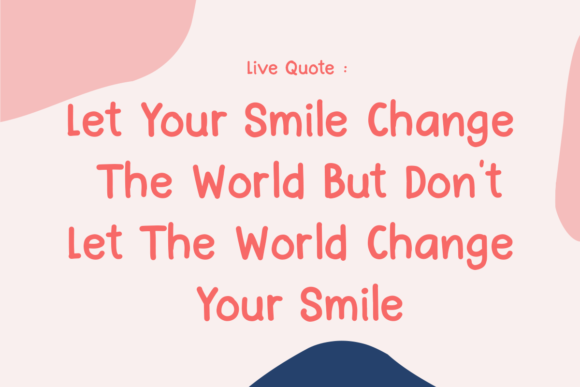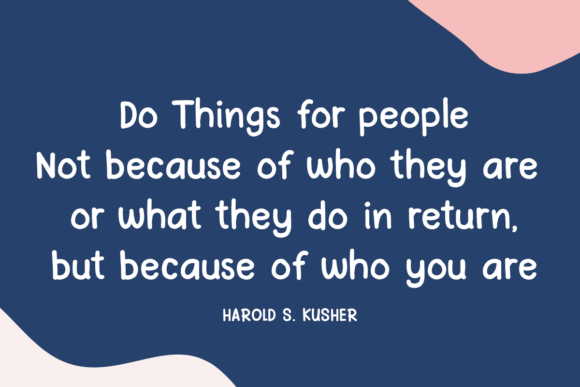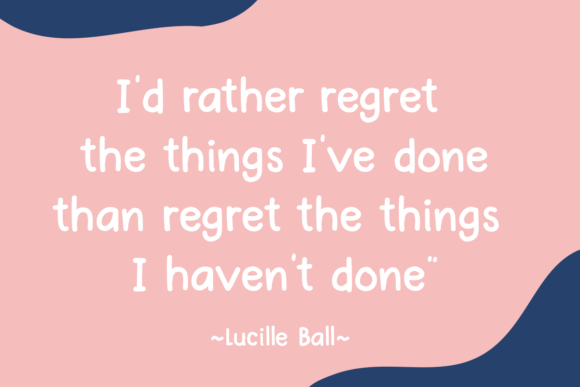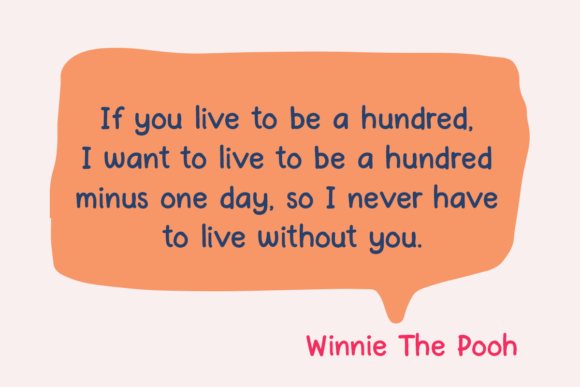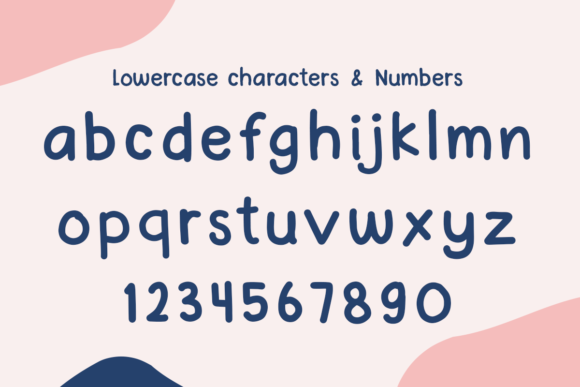
Introduction to Pink Chicken Font
Have you ever stared at a blank page, waiting for inspiration to strike? That’s exactly where I was when I stumbled upon the Pink Chicken Font. Its playful, handwritten style immediately captured my attention, and I knew I had to learn more. With its natural and unique flair, the Pink Chicken Font is the perfect addition to any creative project.
Whether you’re a seasoned designer or just starting out, this font is a valuable resource that can elevate your designs to the next level. Its versatility and high-quality design make it an ideal choice for a wide range of projects, from website headers to social media graphics. And the best part? It’s available for free download, making it accessible to designers of all skill levels.
Key Features of Pink Chicken Font
- High-quality, hand-drawn design perfect for creative projects and design resources.
- Transparent background for easy customization and versatility.
- Includes 5 styles and 5 weights for a wide range of design applications.
- Designed for use at any resolution, from low-resolution displays to high-resolution print materials.
- Perfect for use in digital design, graphic design, and creative projects requiring a unique, hand-drawn look.
Honest Review: Pink Chicken Font
I recently stumbled upon the Pink Chicken Font, and I must say it’s a delightful addition to any creative project. This font is perfect for designers looking for a unique touch in their designs.
- ✨ High quality design: The font is well-crafted, making it a great choice for professional projects.
- ✨ Transparent background: The font’s transparent background allows for seamless integration with other design elements.
- ⚠️ Limited font styles: While the font is lovely, it’s limited to a few styles, which may not be ideal for complex designs.
- ⚠️ Not ideal for body text: The font is more suited for headings and titles, as it can be difficult to read in large blocks of text.
Overall, the Pink Chicken Font is a great design resource for any creative project. While it has its limitations, it’s a high-quality font that’s sure to add a unique touch to your designs. Just be sure to use it wisely and in the right context.
Tips for Getting the Most Out of Pink Chicken Font
To get the most out of the Pink Chicken Font, use it with a transparent background for a high-quality design effect. Experiment with different font sizes and colors to add visual interest to your design.
The Pink Chicken Font is perfect for creative projects such as: